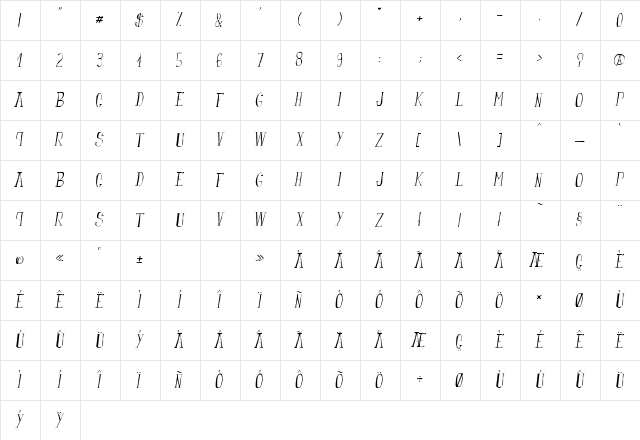
Style: fanfarone-italique
Foundry: Ewen Prigent
Designer: Ewen Prigent
Design Context for fanfarone-italique
fanfarone-italique is a composed and adaptable typeface that performs quietly and consistently across a wide range of design contexts.